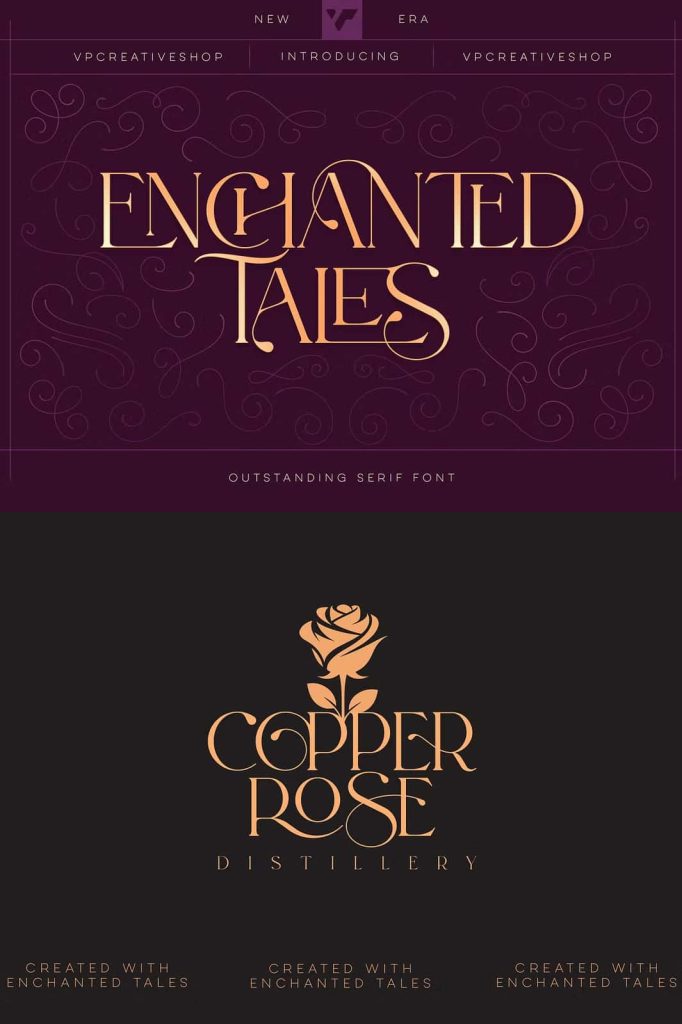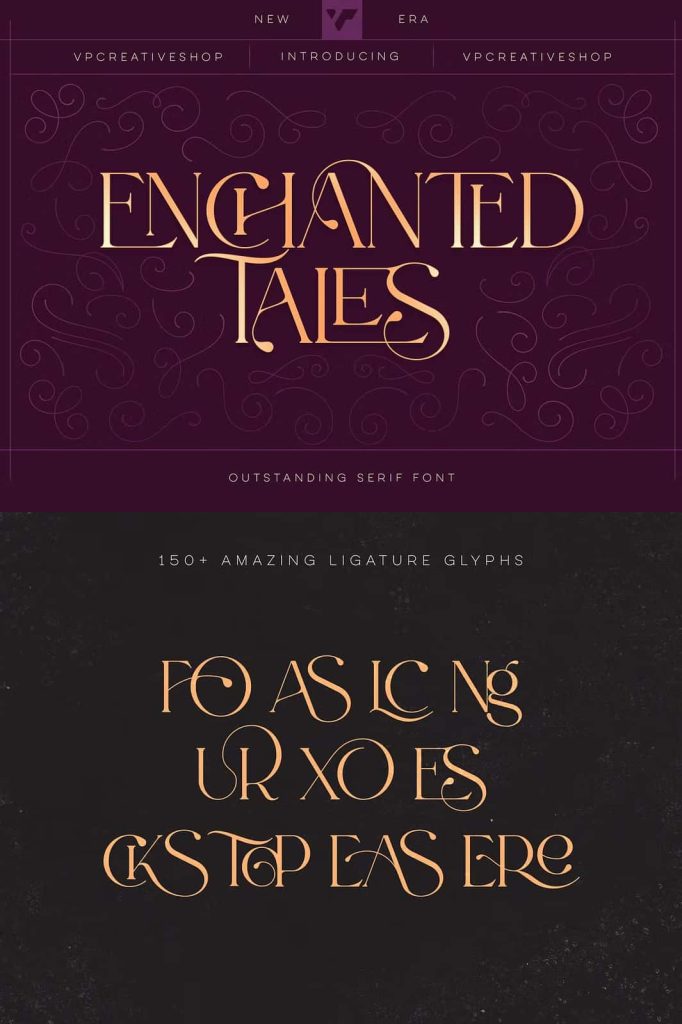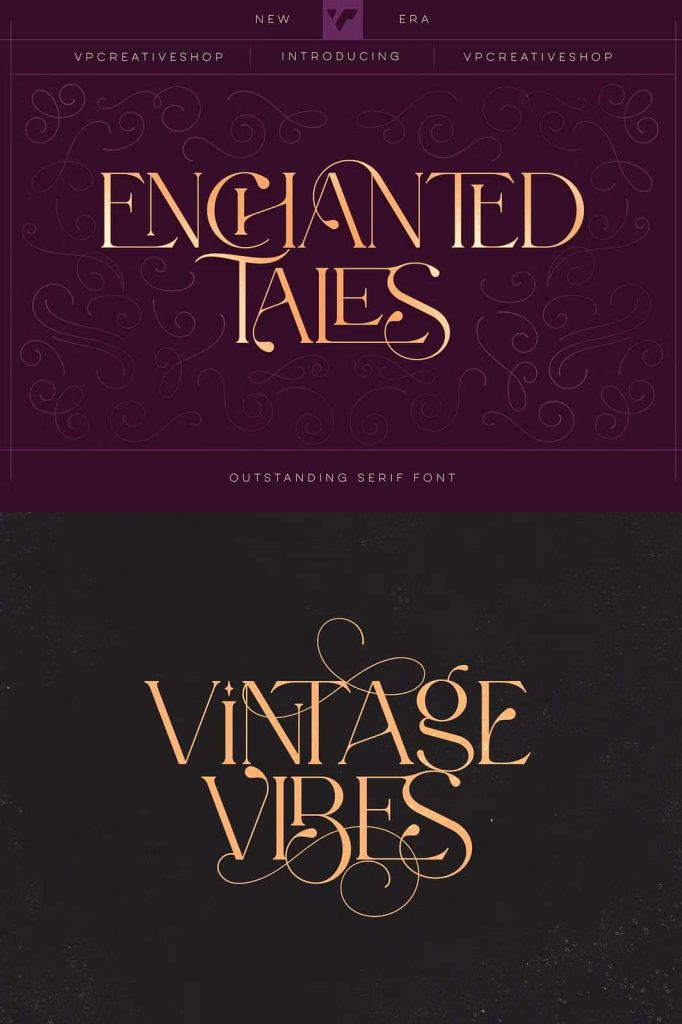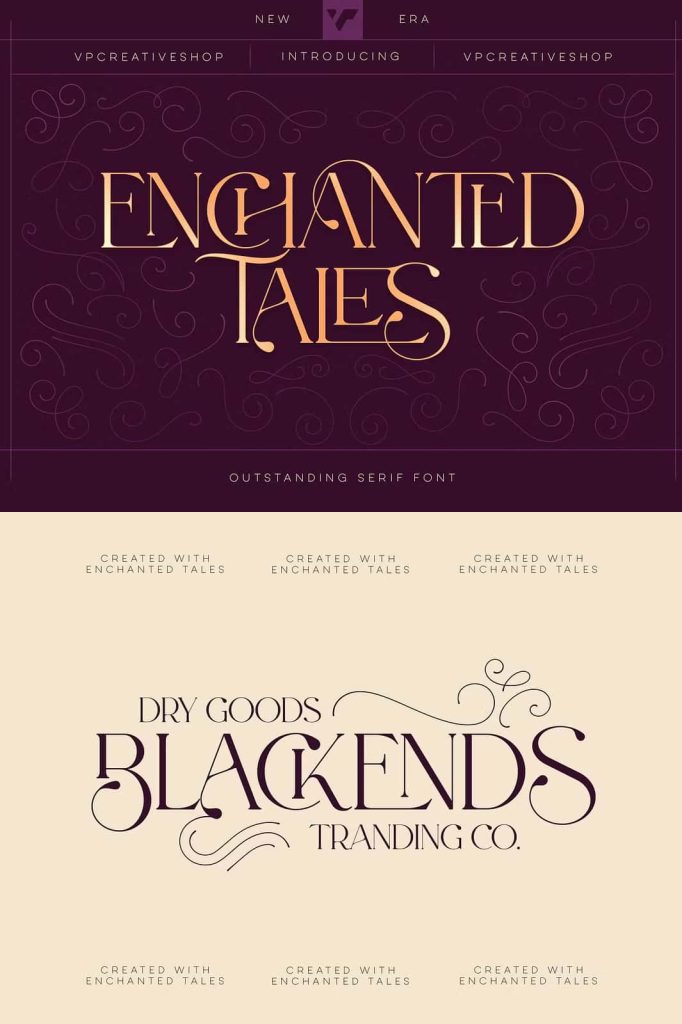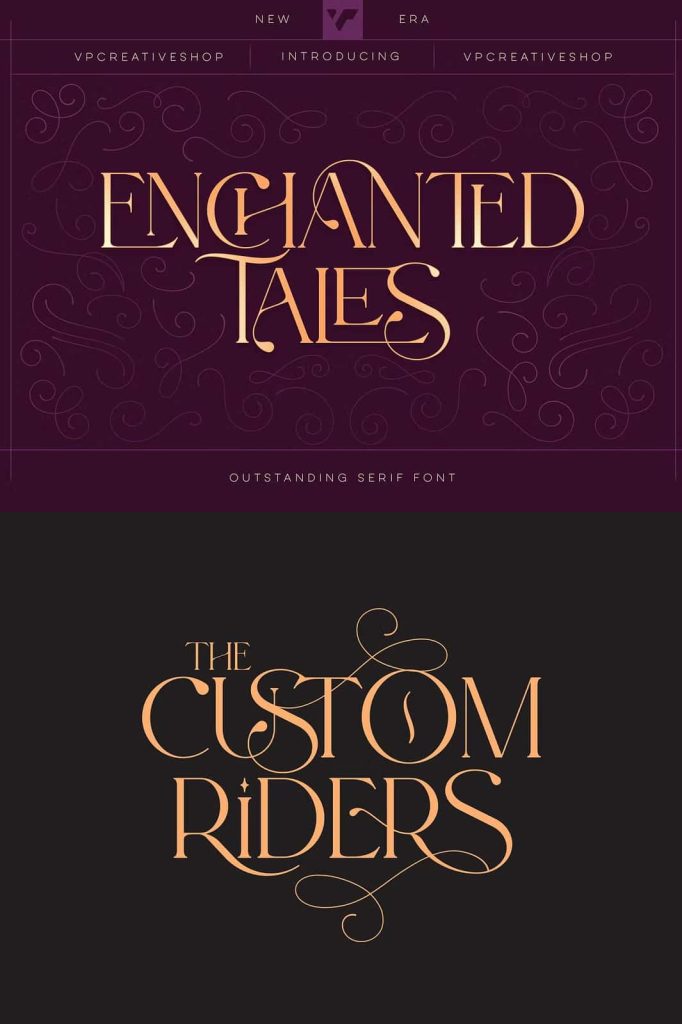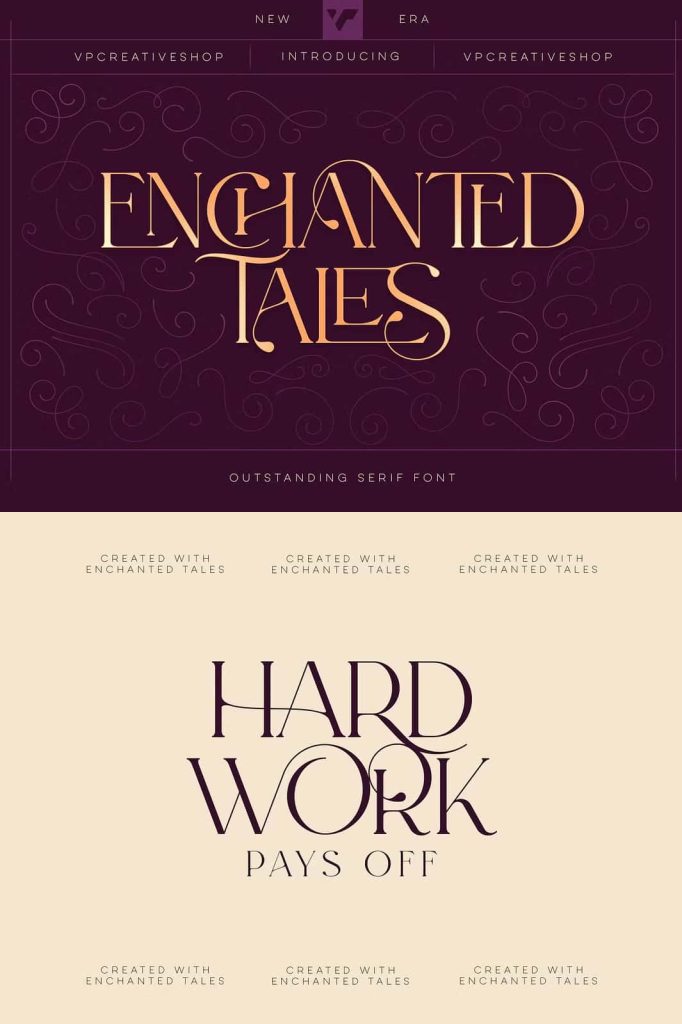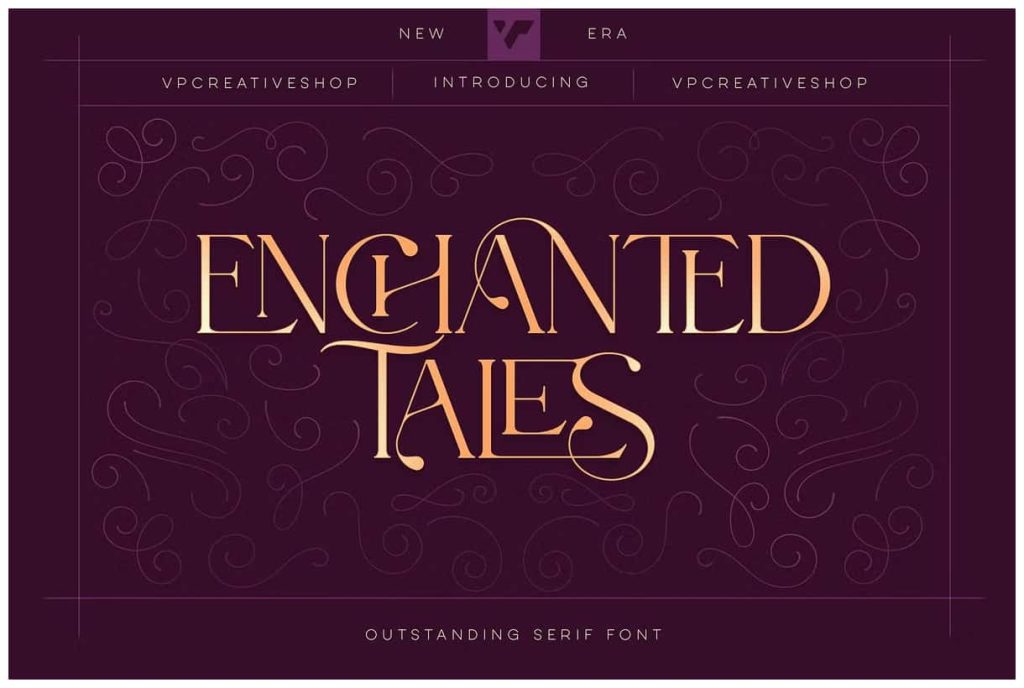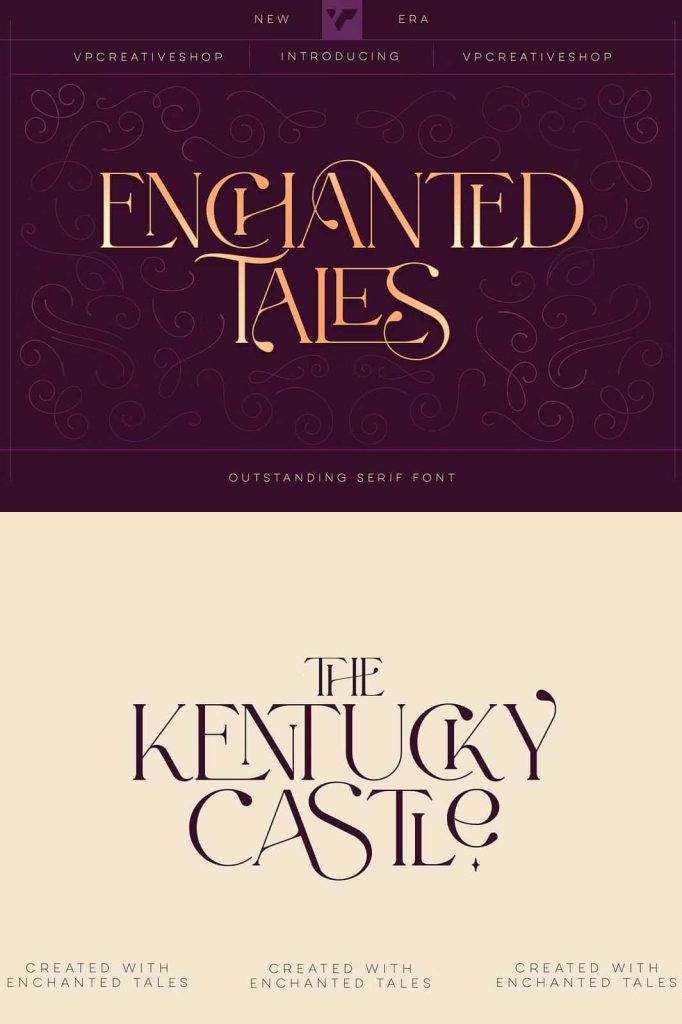
Enchanted Tales Serif Font: Classic Elegance Meets Modern Versatility
The Enchanted Tales Serif Font is a beautifully designed typeface that merges timeless serif charm with contemporary adaptability. Created for designers who value refinement and expressive typography, this font elevates every project with its graceful structure and attention to detail. Its balanced design makes it suitable for both digital and print use, offering a polished and engaging visual experience. Whether you work on branding, editorial layouts, packaging, or promotional materials, Enchanted Tales provides the stylistic range and professional quality needed to enhance your creative work.
Designed for Global Accessibility with 87-Language Support
One of the most compelling strengths of Enchanted Tales is its extensive multilingual capability. Supporting 87 languages, this font ensures that your message reaches audiences across a wide variety of cultures and regions. This level of accessibility makes it an exceptional choice for international branding, multilingual packaging, global marketing campaigns, and diverse editorial publications. With Enchanted Tales, you can maintain a consistent typographic style while communicating clearly and effectively in different languages.
Perfect for Designers Working Across Borders
The global compatibility of Enchanted Tales allows professionals to streamline their design workflow. Instead of switching between mismatched fonts or compromising on visual identity, designers can rely on this single typeface to maintain consistency throughout multinational projects. Whether you design for global clients or create content that spans multiple languages, Enchanted Tales offers the flexibility and clarity needed for seamless communication.
Over 150 Ligature Glyphs for Elevated Typography
At the heart of Enchanted Tales is its remarkable collection of more than 150 ligature glyphs. Each ligature is thoughtfully crafted to enhance the beauty and flow of your text. These stylistic connections add a smooth and artistic interaction between characters, transforming ordinary words into elegant typographic expressions. The ligatures contribute visual interest, making your layout feel more refined, cohesive, and uniquely expressive.
Meticulous Craftsmanship Behind Every Character
Every ligature in Enchanted Tales reflects careful design and artistic precision. These glyphs allow designers to introduce custom flair without relying on additional graphic elements. The seamless transitions and elaborate forms can elevate titles, logos, invitations, and decorative headlines. Whether you apply them subtly or prominently, these ligatures give your work a handcrafted quality that sparks attention and admiration.
A Versatile Serif Font for Endless Creative Uses
Enchanted Tales operates confidently across a wide range of projects. It works beautifully for branding identities that require both sophistication and versatility. Editorial designers can rely on its structural clarity for magazine titles, book chapters, or article headings. For packaging designers, the font delivers a refined tone that enhances product personality and visual appeal. Its modern serif shape also performs well in digital graphics, website headers, social media content, and promotional materials.
Classic Elegance with a Contemporary Approach
The balance between classic serif elements and modern design principles makes Enchanted Tales particularly effective. The elegant curves, sharp serifs, and smooth letterforms create a timeless feel, while the practical functionality and extensive features meet the needs of today’s fast-paced creative world. This fusion allows designers to produce work that feels both traditional and fresh, making the font ideal for projects that require visual storytelling with depth and sophistication.
The Enchanted Tales Serif Font stands out as a captivating typeface that brings together classic elegance, modern versatility, multilingual support, and a rich library of ligature glyphs. Its ability to perform across numerous languages and design applications makes it a powerful tool for global communication and creative exploration. Whether you design branding, editorial content, packaging, or digital media, Enchanted Tales enhances your work with sophistication, clarity, and artistic detail. Add this font to your collection and experience how it transforms your typography into a truly enchanting visual story.